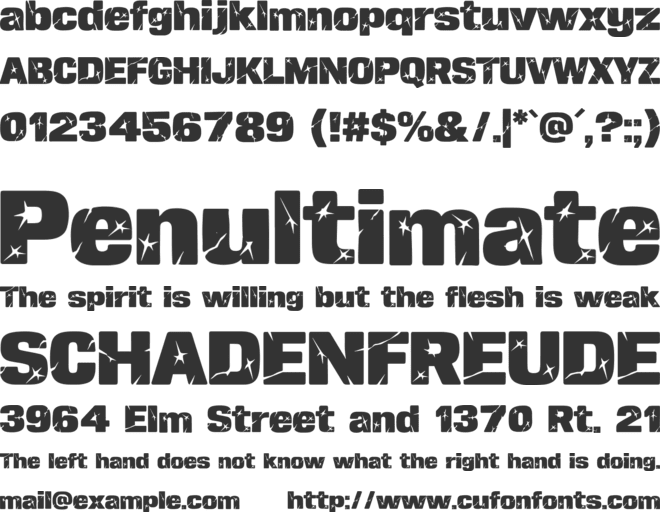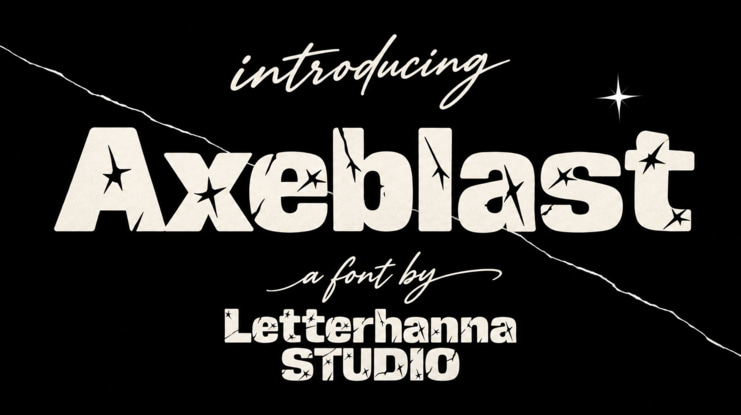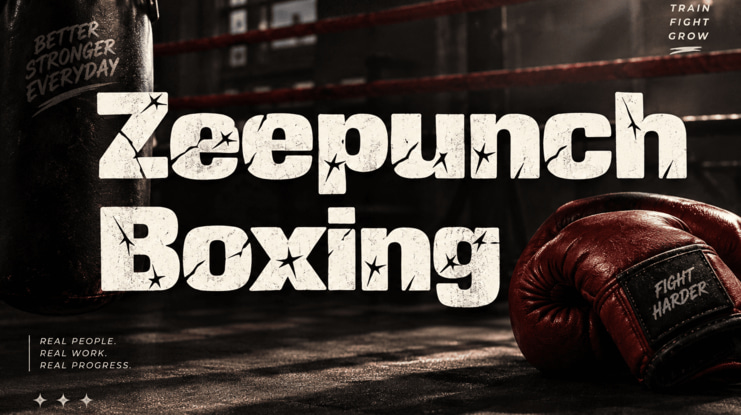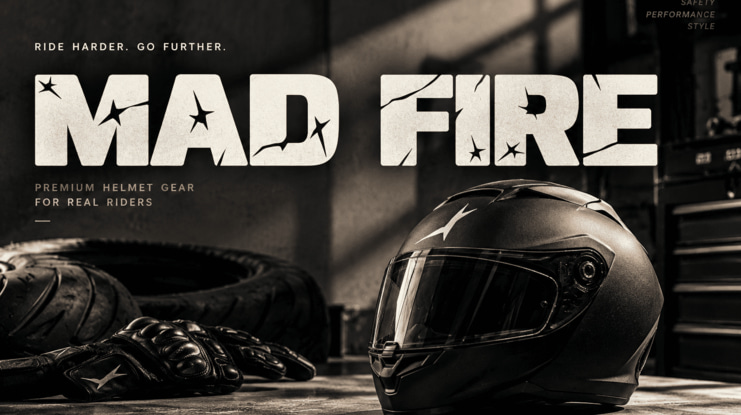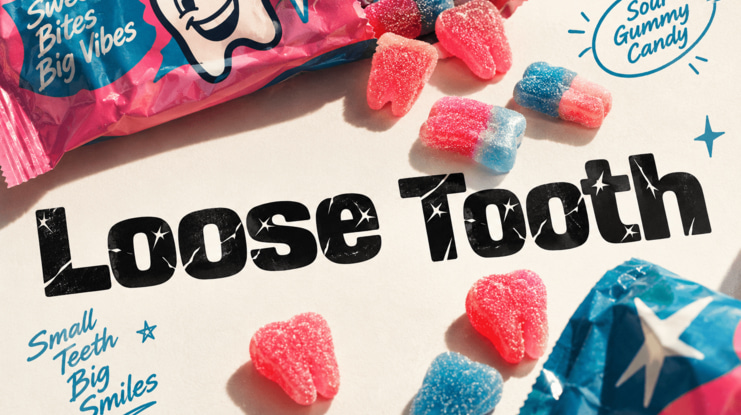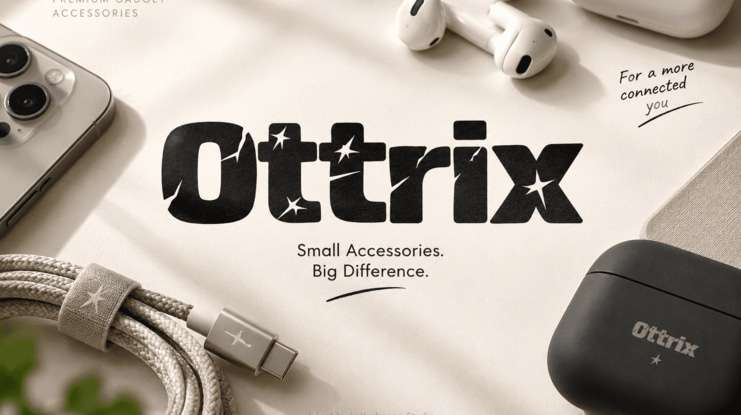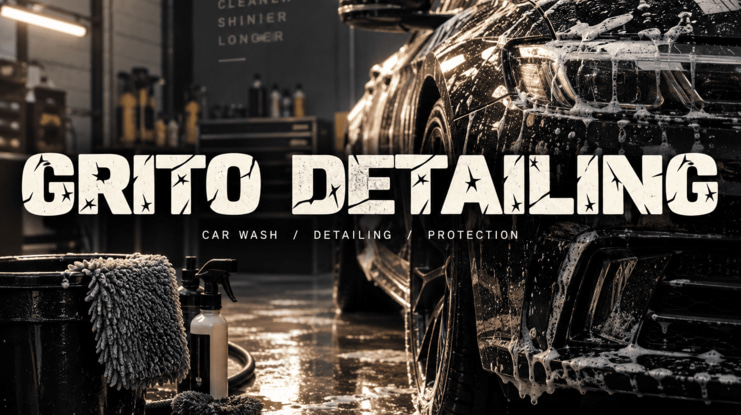
Most fonts try to look perfect. Axeblast does the opposite. This cracked font wears its scars proudly, with fractured strokes and tiny star-shaped sparkles built into every letter.
It is also a heavy font with a chunky, rounded body, so it stays readable even when the damage looks dramatic. Think of it as a stone font that survived a fight and came back shinier.
The Style Behind the Cracks
Axeblast blends rugged and playful. The thick strokes feel like carved stone, while the sparkles add a surprising touch of shine.
Bold, compact letterforms with soft rounded corners
Hairline cracks that run across strokes for a broken-stone texture
Star glints that add a modern, streetwear twist
Uppercase and lowercase that carry the same tough attitude
Where Axeblast Comes to Life
A strong font needs a story. Here is how Axeblast performs in real mockups.
Boxing gyms: Zeepunch Boxing feels raw and sweaty, like a gym wall that has taken a thousand hits.
Helmet and moto gear: Mad Fire looks road-scratched and fast, perfect for riders who live in the garage.
Candy and snacks: Loose Tooth proves a cracked font can be cheeky and fun, not just tough.
Tech accessories: Ottrix shows how heavy lettering makes small gadgets look confident.
Car detailing: Grito Detailing shines through foam and water like a fresh ceramic coat.
Outdoor gear: Tumbleweed shows that even lowercase can feel wild and trail-ready.
Energy drinks: Vantro & Bruk adds caffeine-level punch to a can label.
Streetwear: Skello turns a plain hoodie into a statement.
The Vibe: Tough, Cool, and Slightly Chaotic
Imagine a brand that never looks too clean. Axeblast gives your design a story before anyone reads a word. It feels urban, rebellious, and a little bit magical.
Because it is a heavy font, it works best at large sizes: logos, posters, packaging, merch, and video titles. Pair it with a simple sans or a light script for balance.
Design Tips for Best Results
Use short names or headlines so the cracks stay visible
Keep backgrounds simple: black, cream, or gritty textures
Add a light script for taglines as contrast